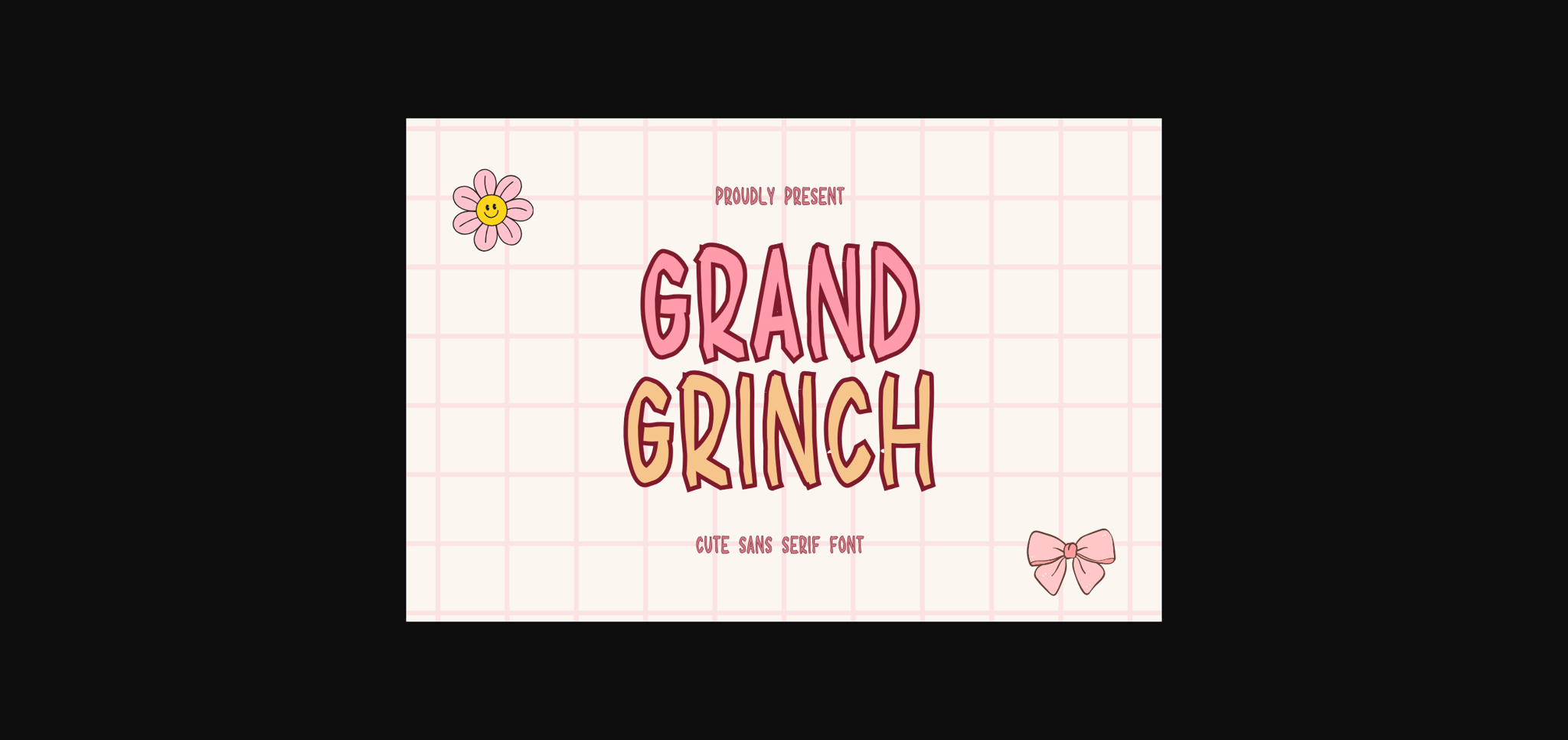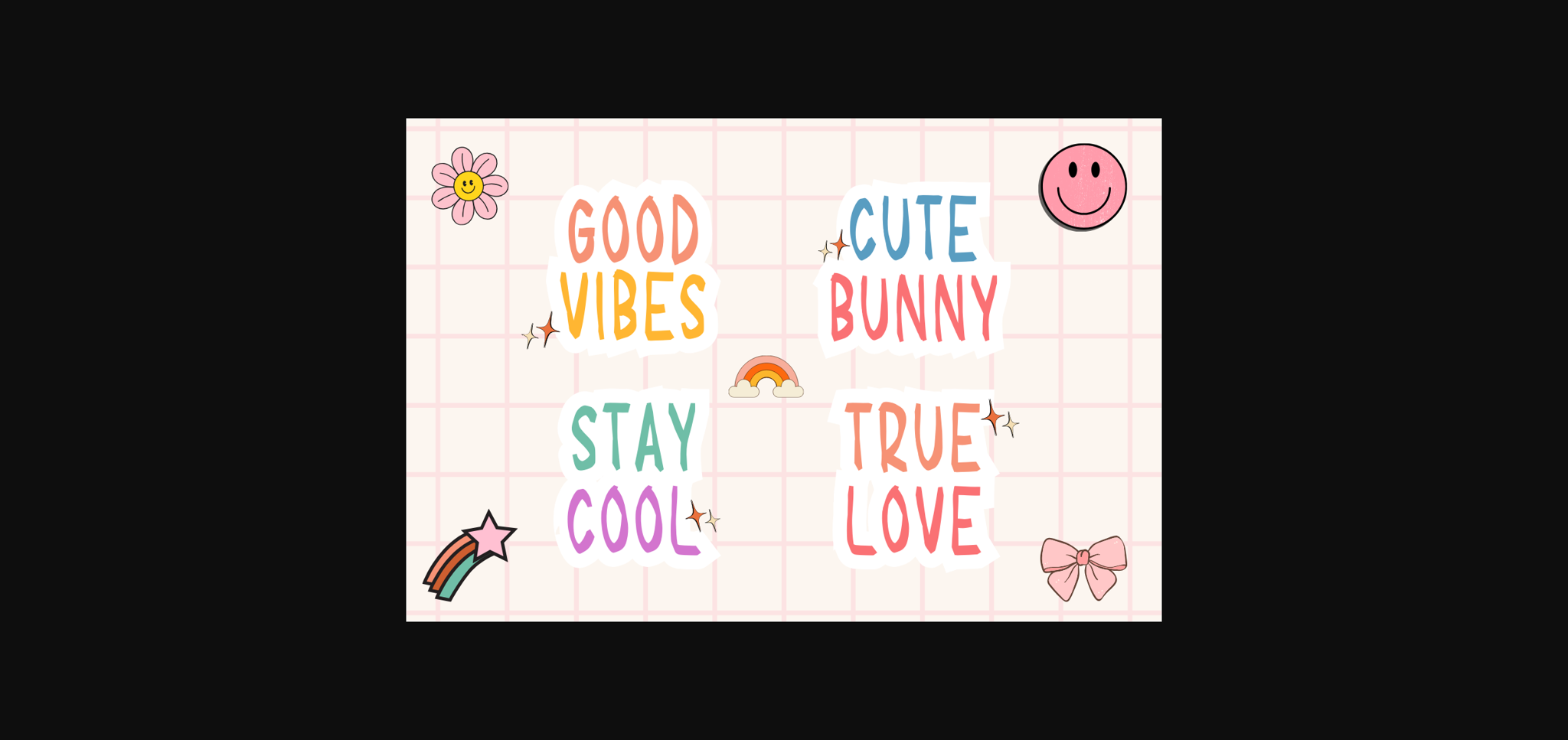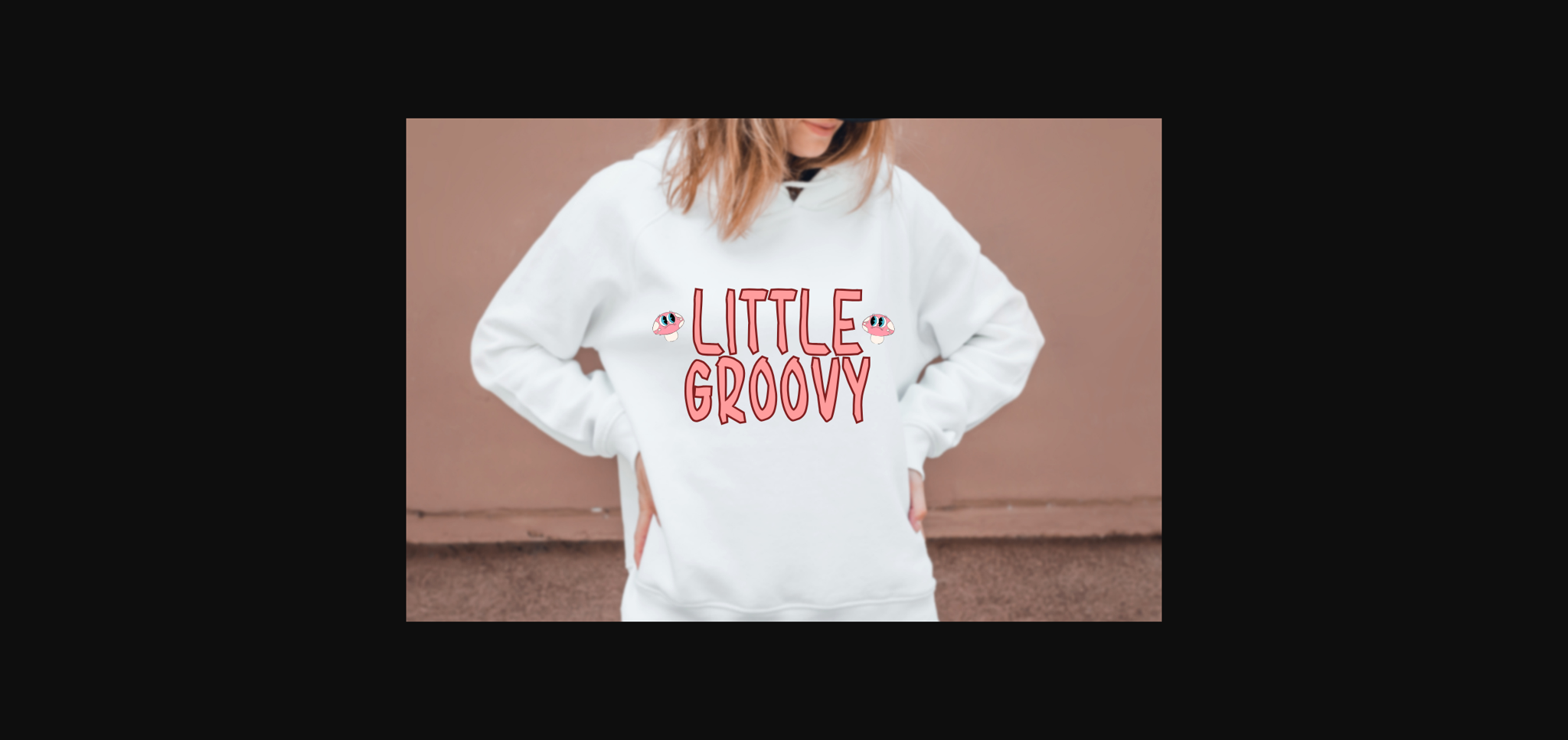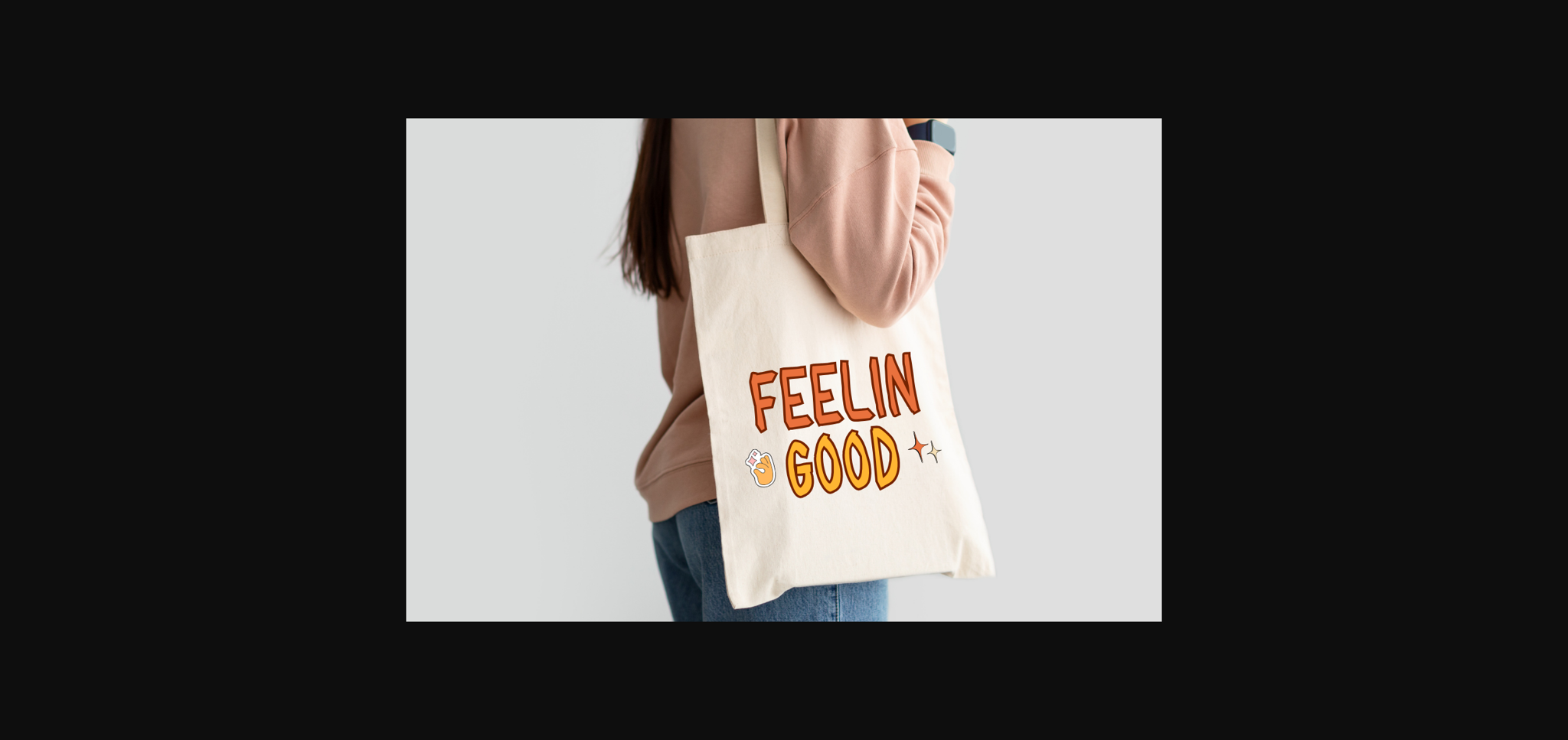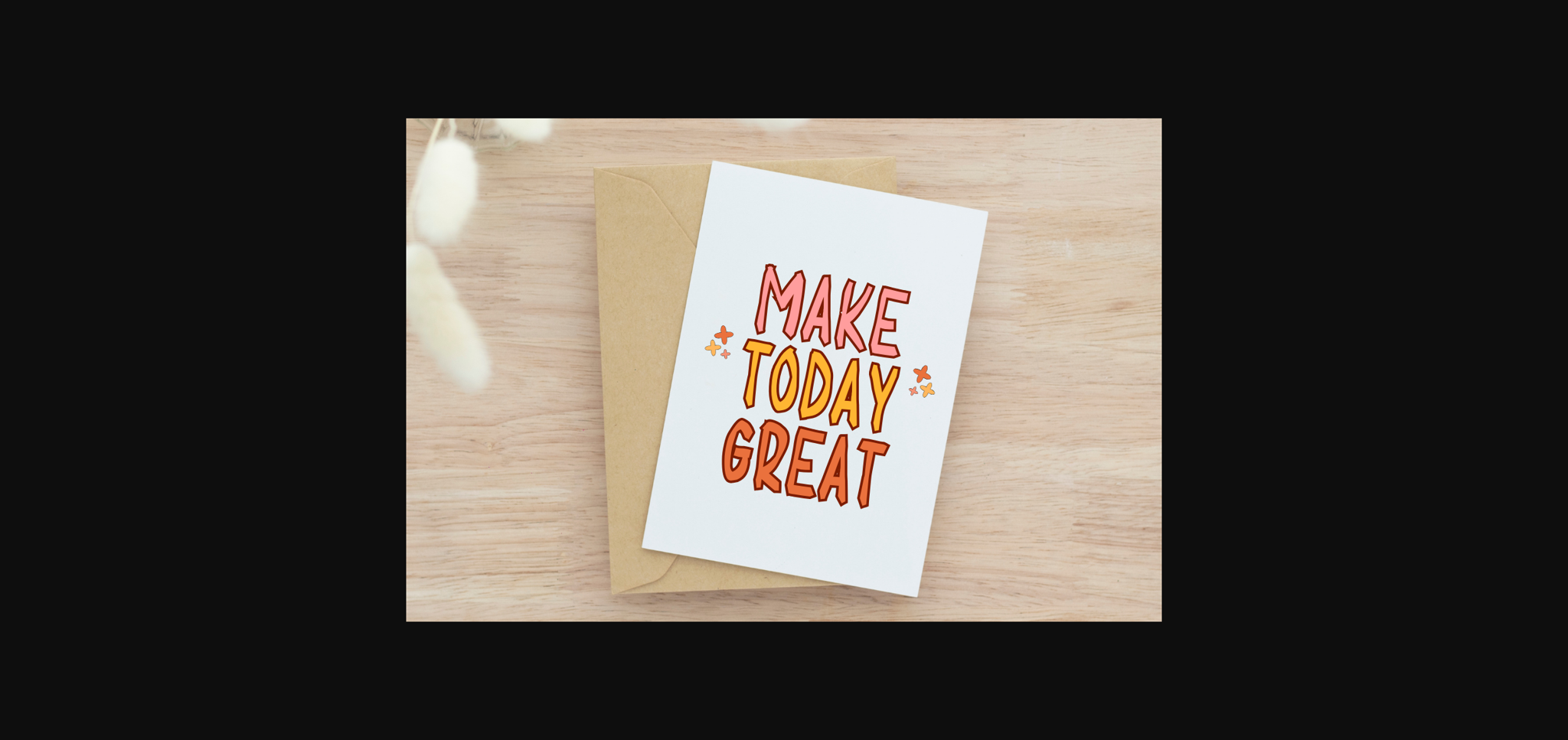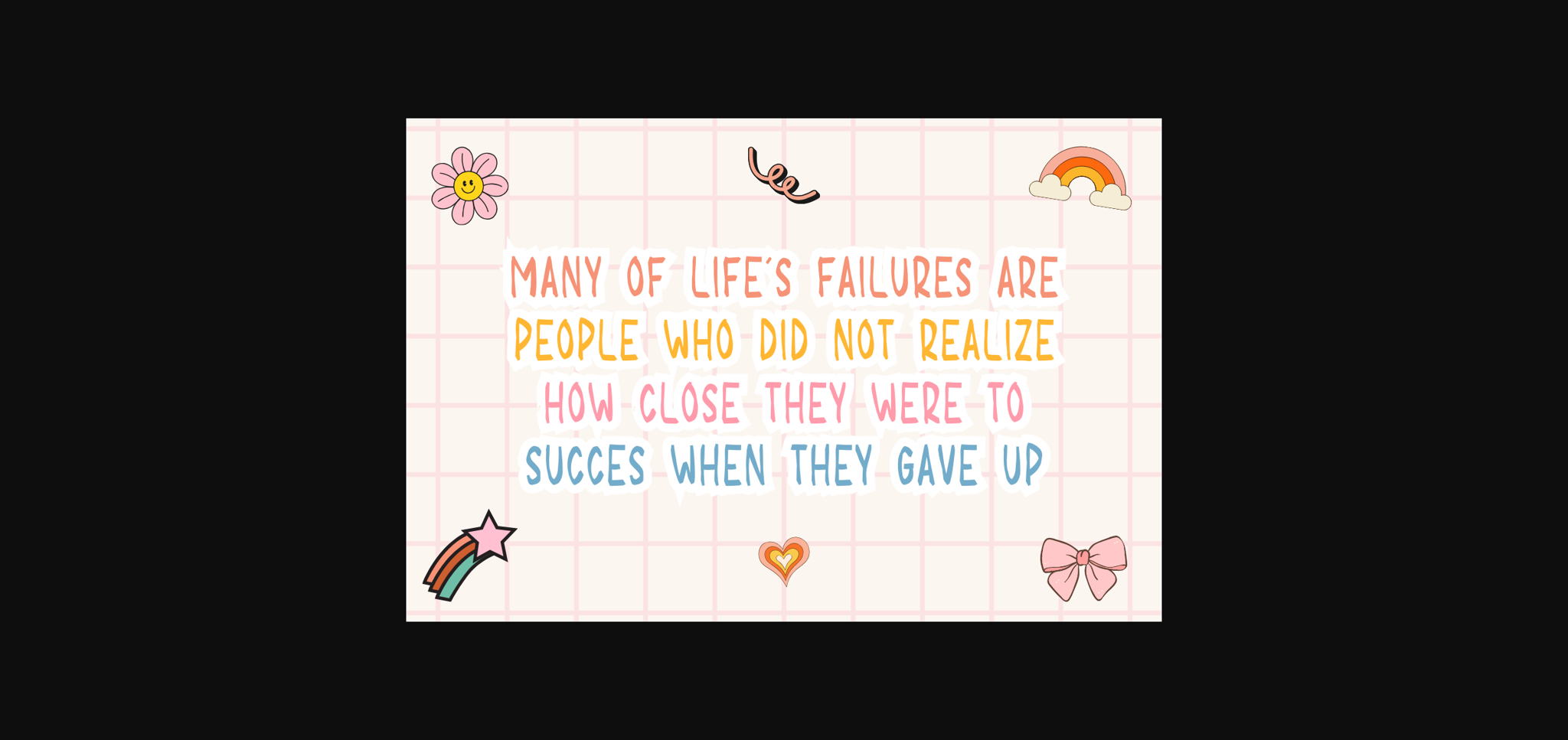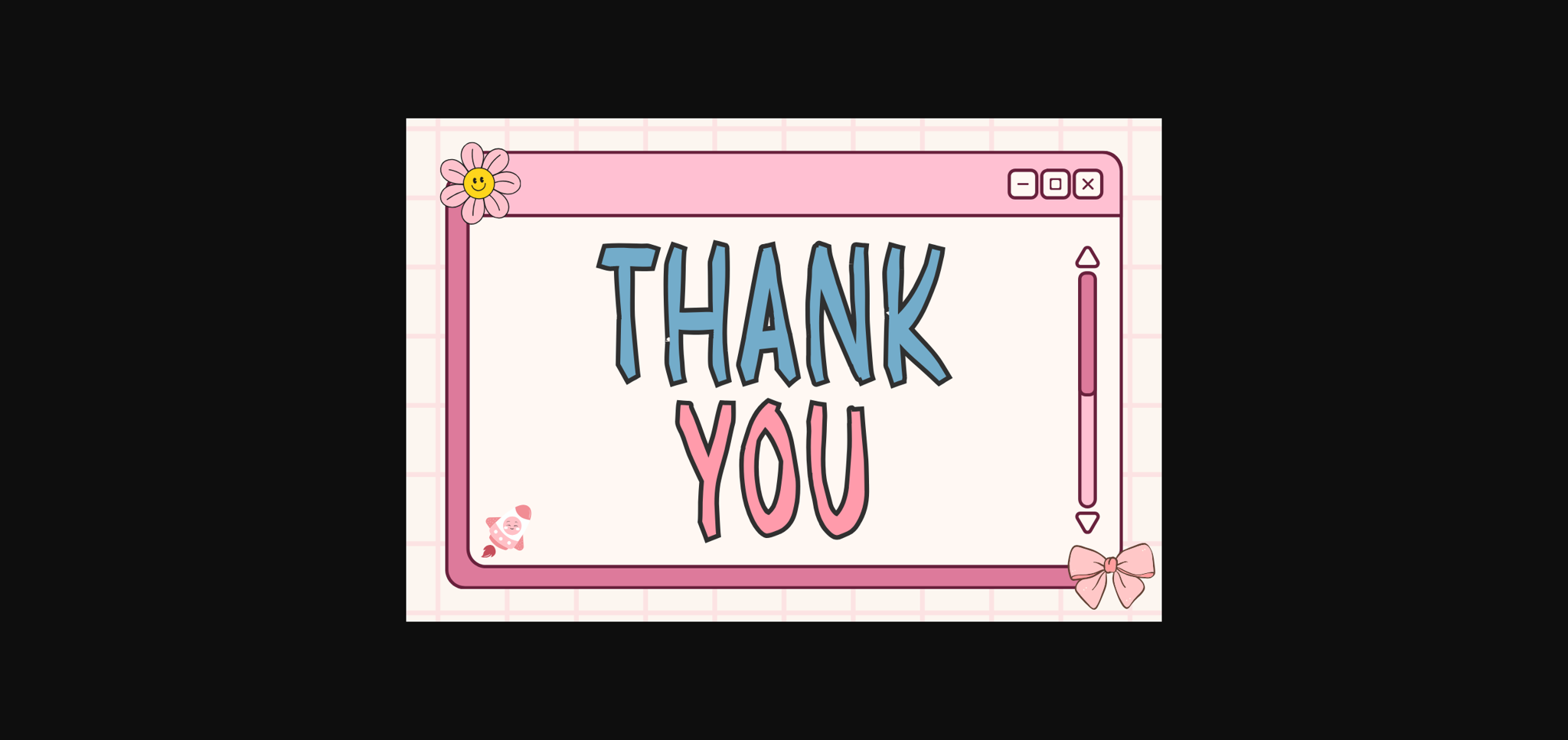
Grand Grinch Font
About Grand Grinch Font
Grand Grinch is a cute, stiff sans-serif font. This font is perfect for Cricut designs, shirts, logos, retro designs, SVG files, and more!